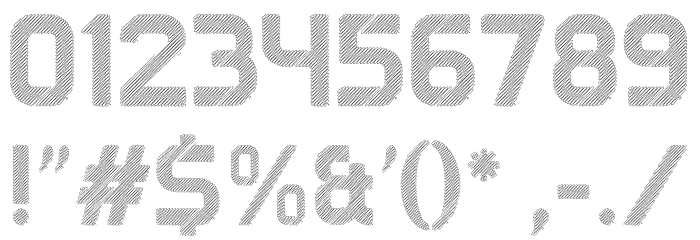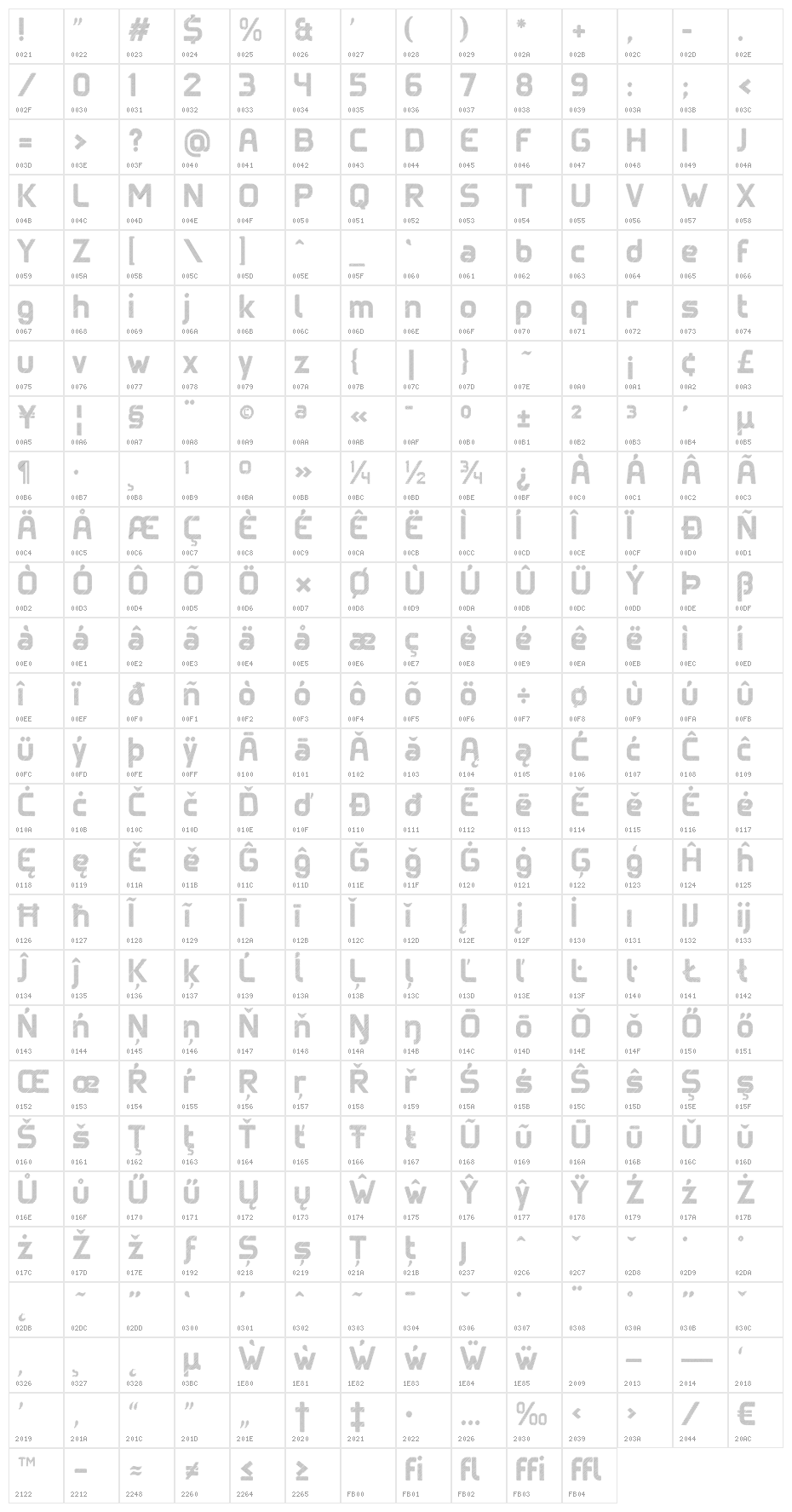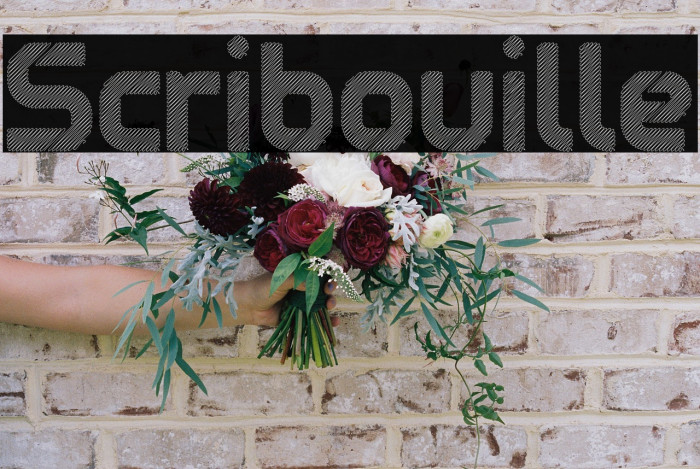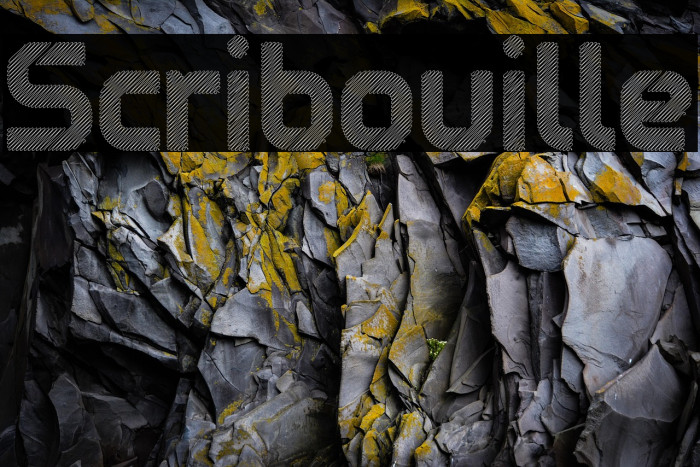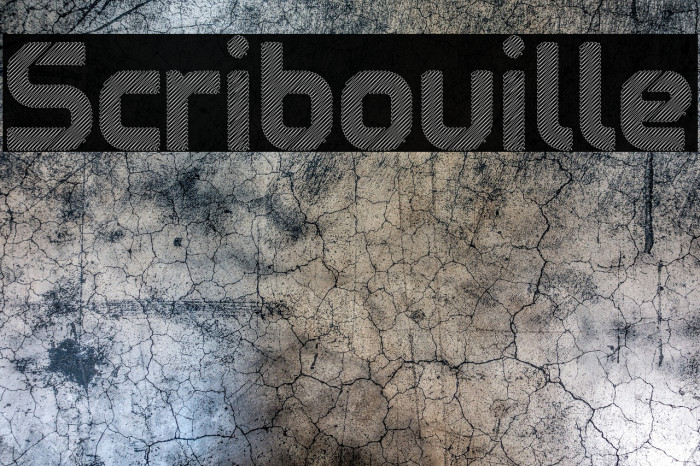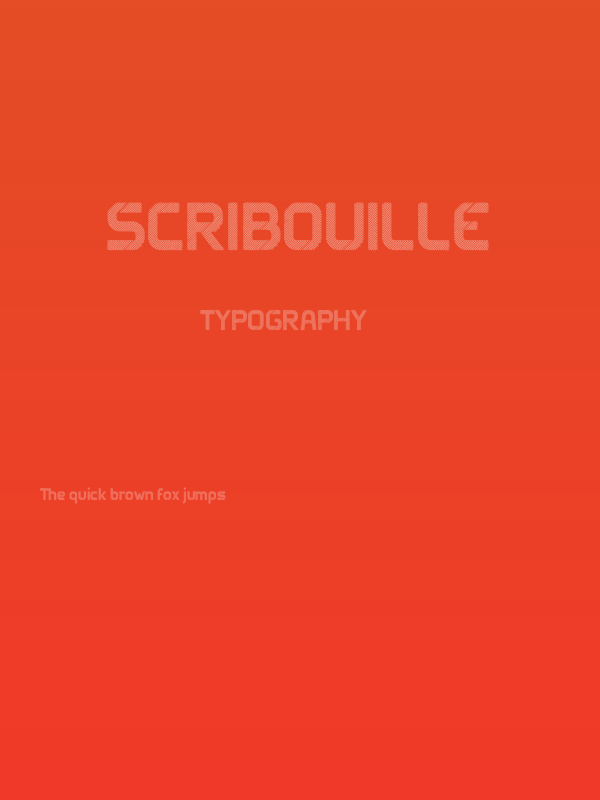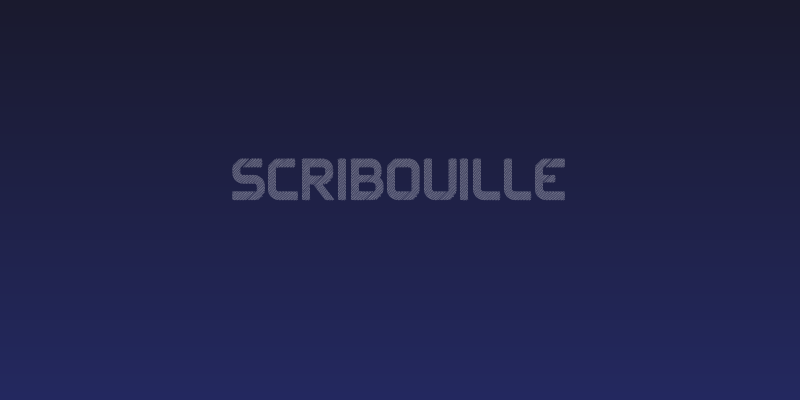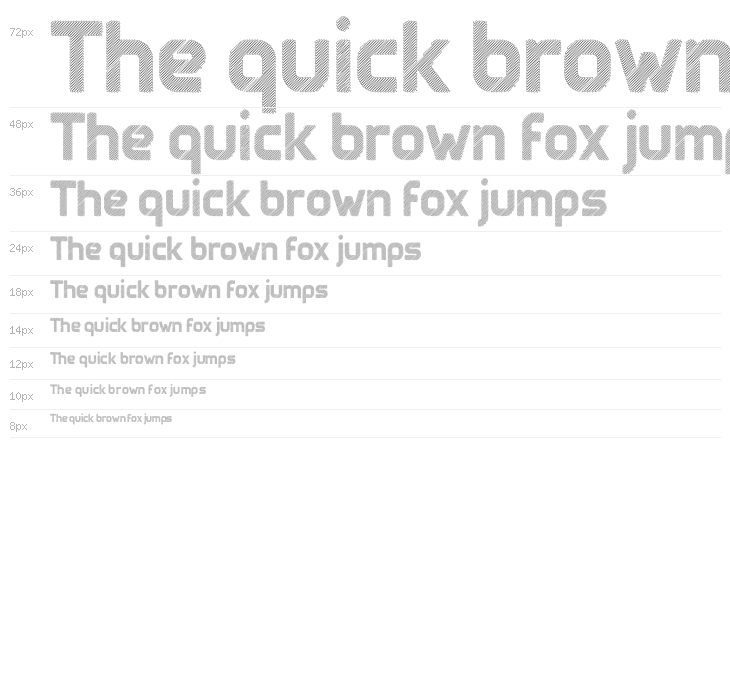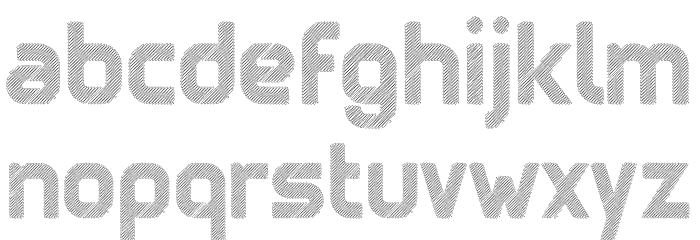
Scribouille Font
Scribouille Description
This font features a unique, textured design with diagonal hatching that gives it a distinct, hand-drawn appearance. The characters are bold and geometric, with a modern, industrial feel. The uppercase and lowercase letters maintain consistent proportions, while the numerals and special characters complement the overall style. The texture adds depth and interest, making it suitable for eye-catching designs. The font's structured yet artistic look makes it versatile for various creative projects.
| Proposed Projects | Ideal for posters, branding, packaging, and artistic projects where a bold statement is needed. |